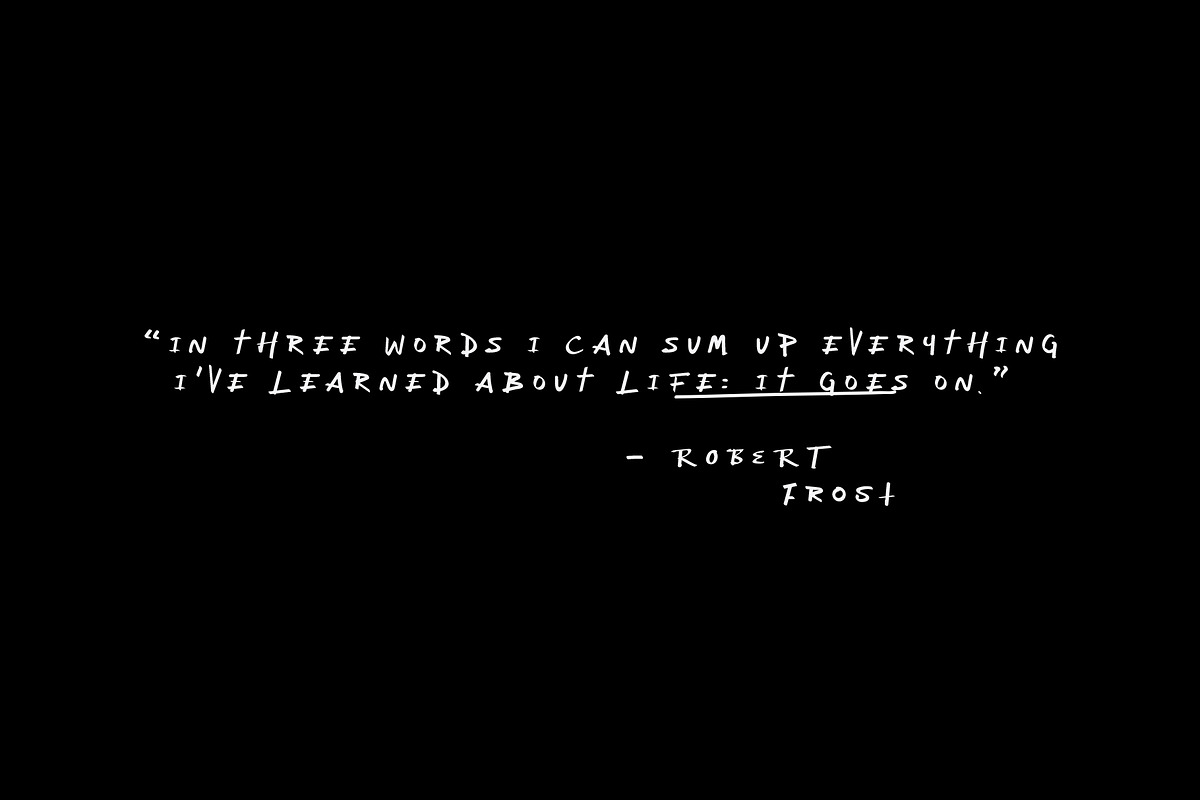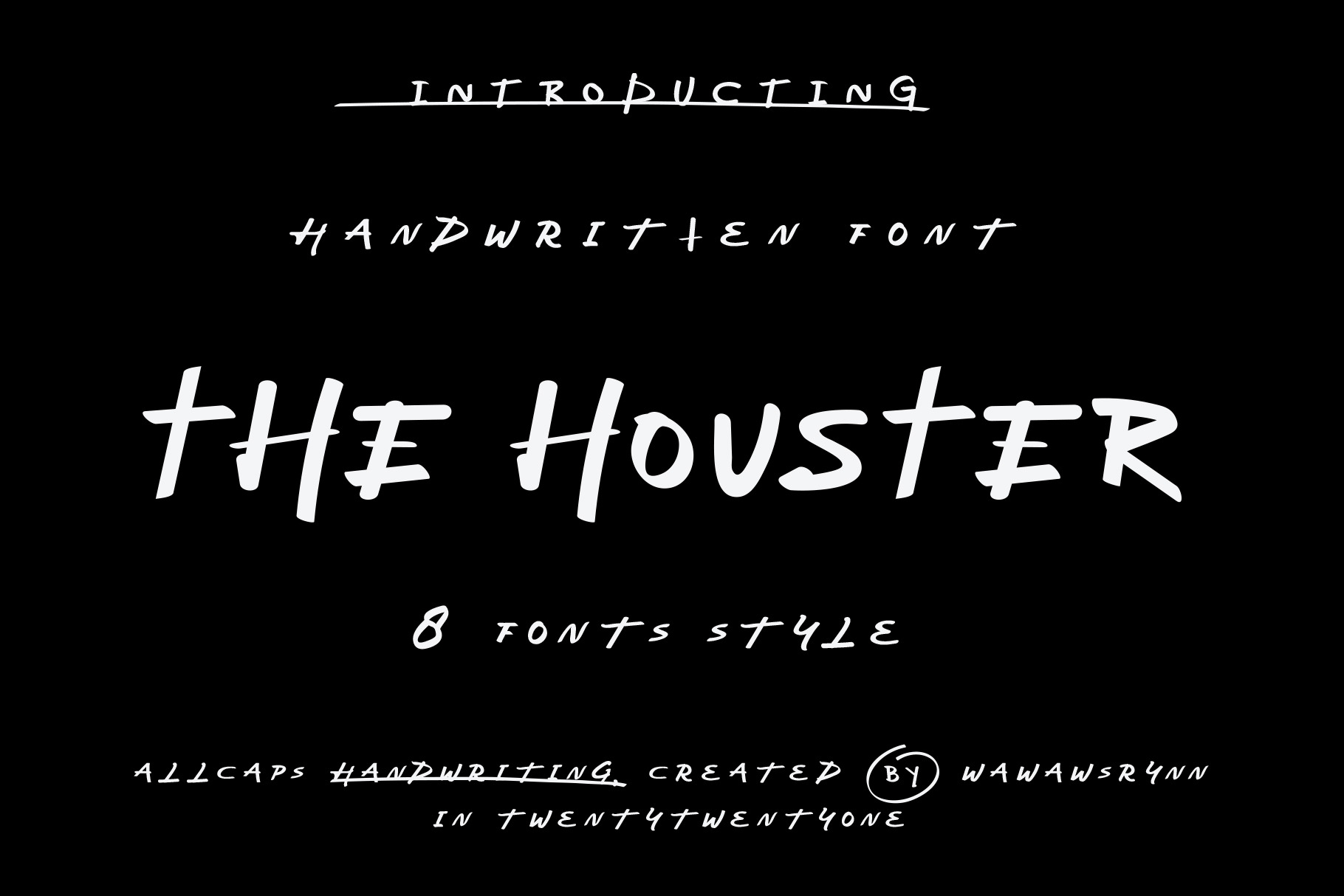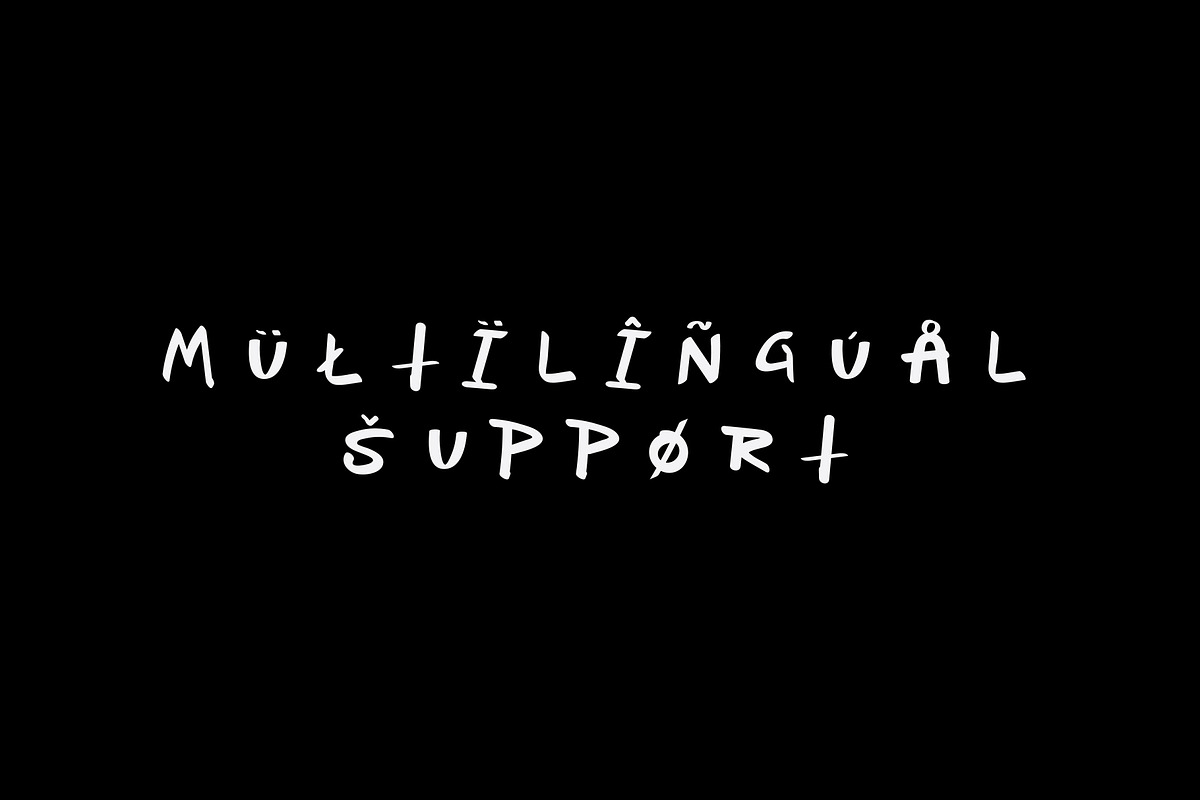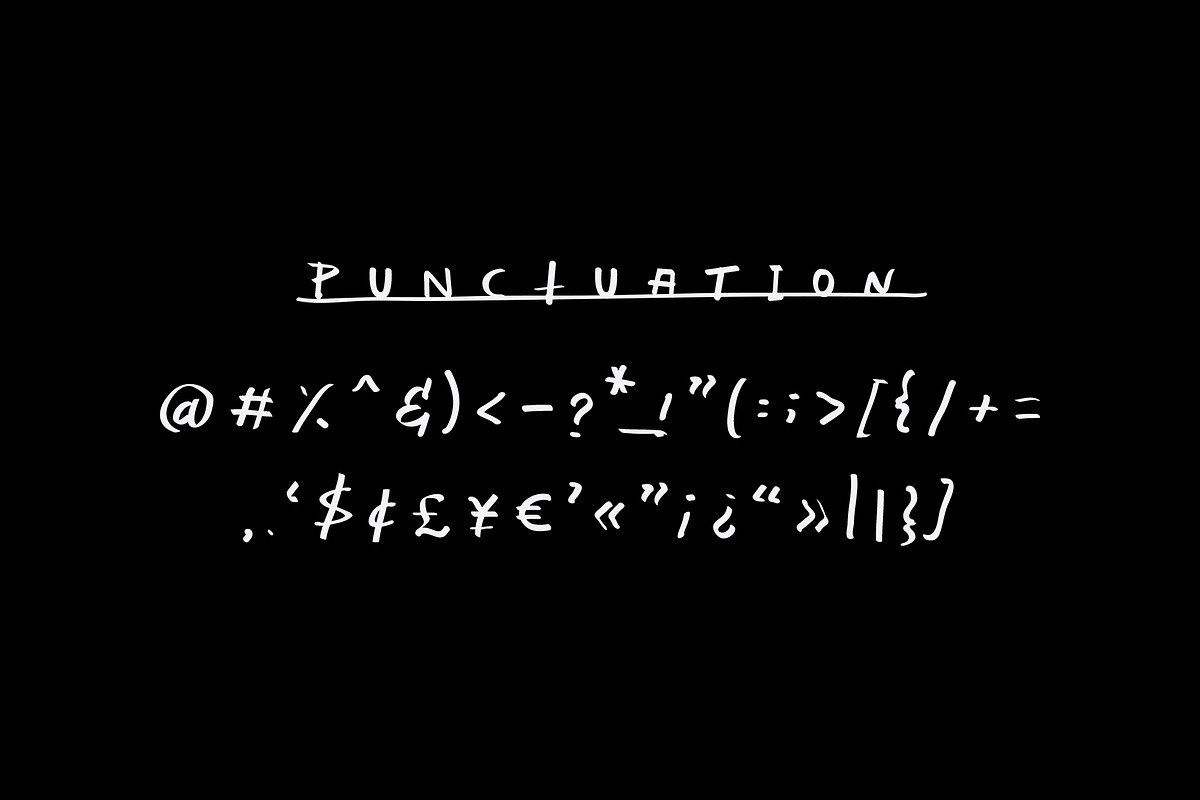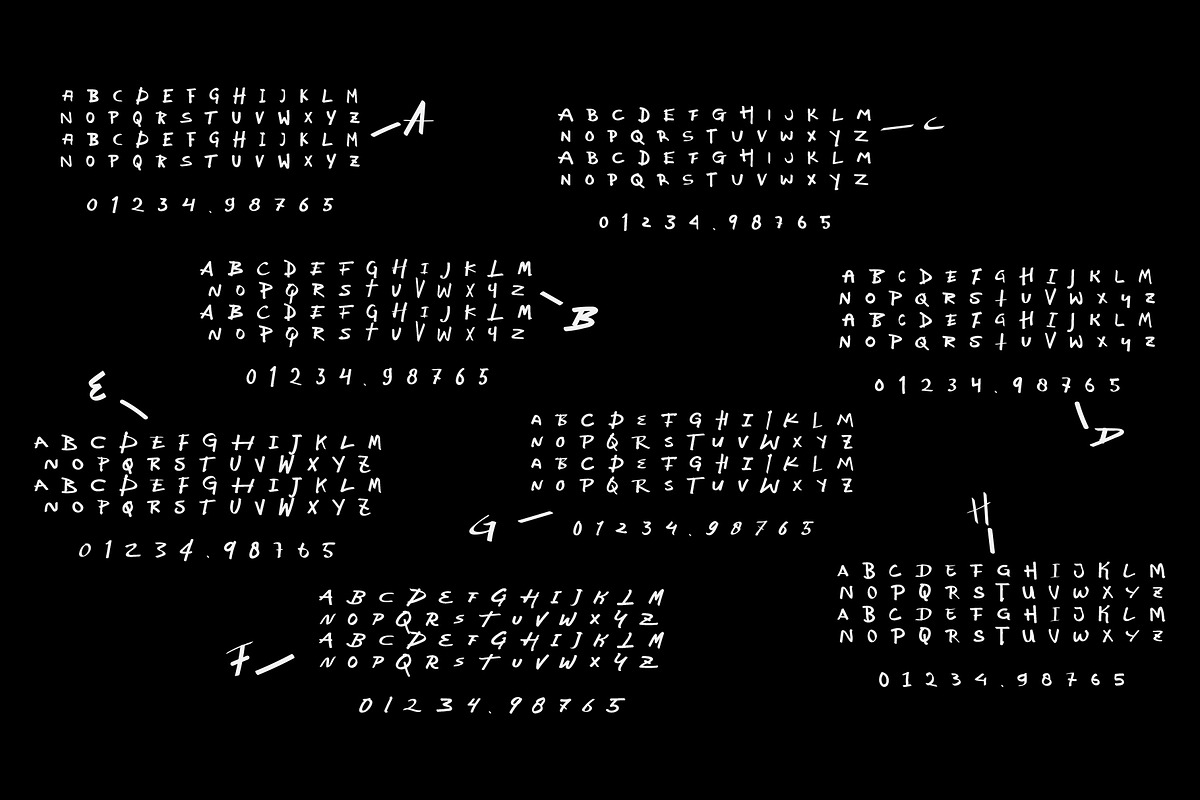
THE HOUSTER - 8 Handwritten Font
The Houster is my lazy handwritten font. but okay, even though it looks lazy, i'm still serious, there are several styles in it.